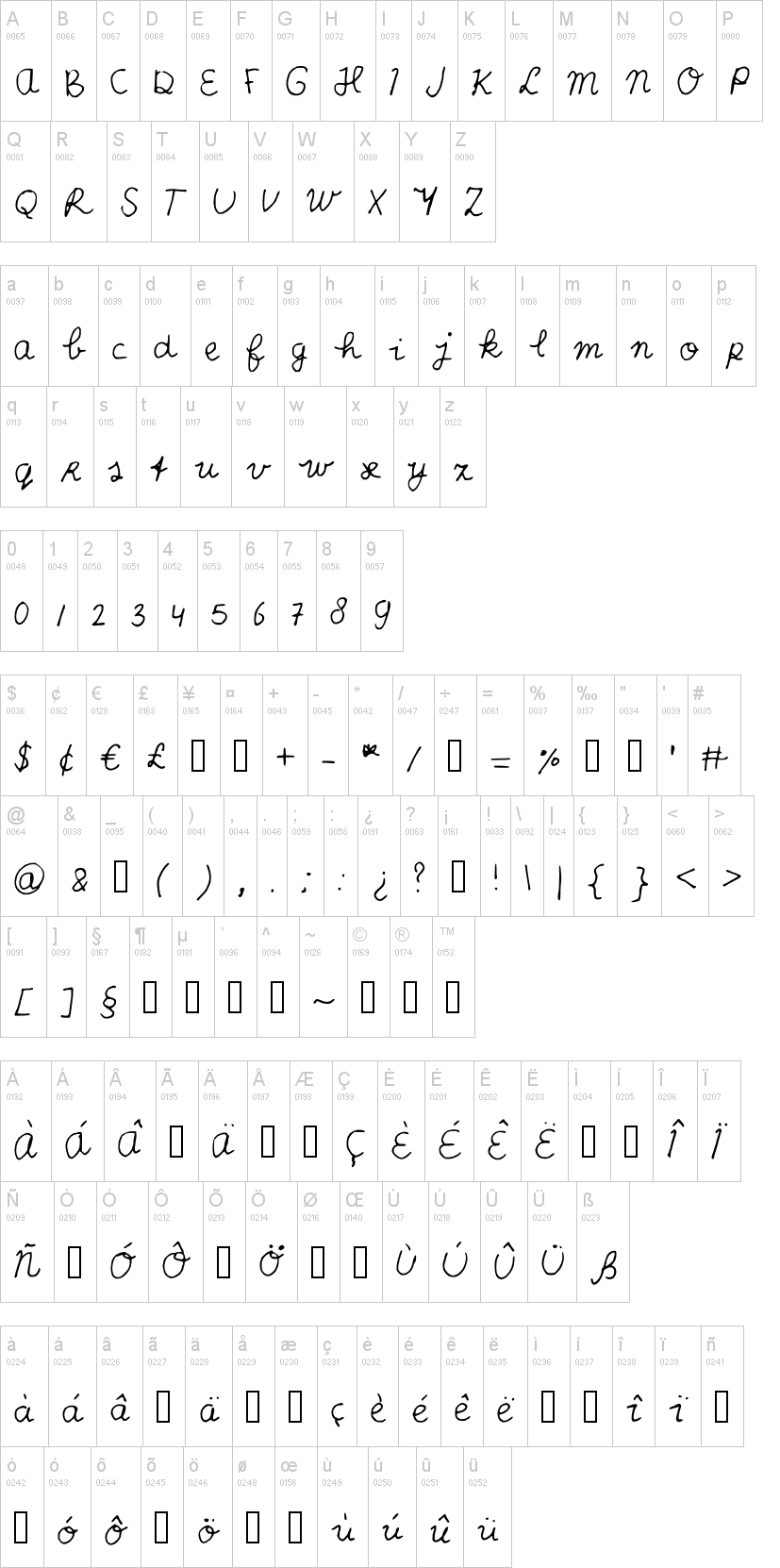
Note of the authorA fun and quirky type, suitable for many purposes. Please show me in which designs you incorporated the type! I'd love to see it :-)